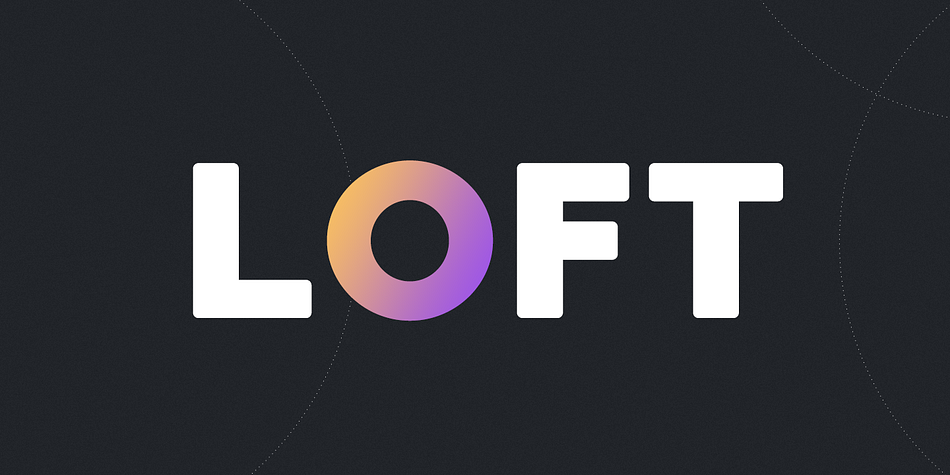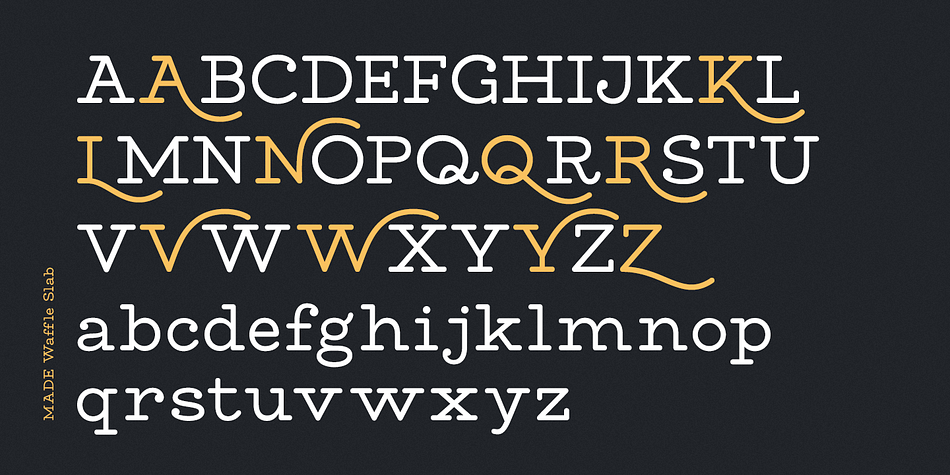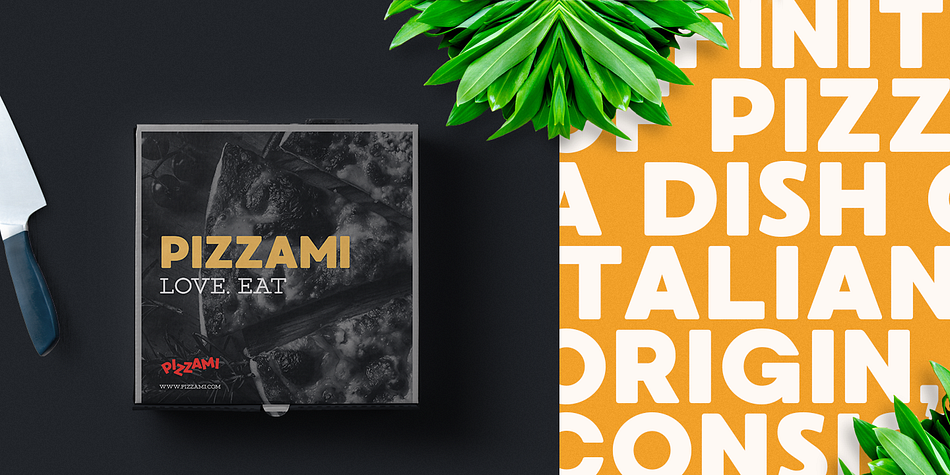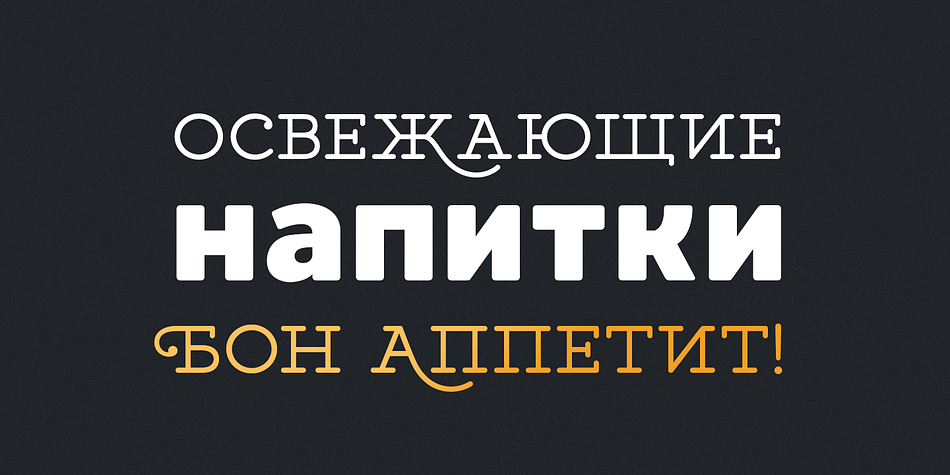
MADE Waffle
Designed by Maxim Schepin and Denis Schepin, MADE Waffle is a multiple classification font family. This typeface has two styles and was published by MadeType.
MADE Waffle - ideal for creating logos, headings. Applicable in the design of restaurants and cafes.
MADE Waffle are two fonts created for combinations of your ideas.